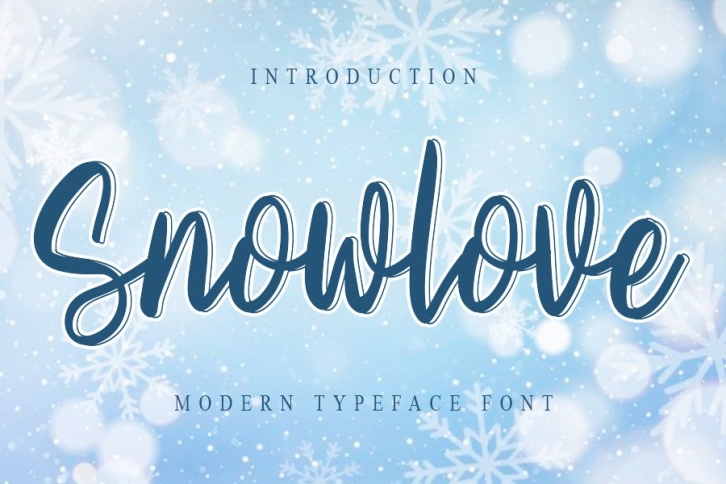
Snowlove is a trendy and unique font with an authentic style. It was designed by FreshType INK and it's a great choice for creative people who need such a font. It was released on March 7, 2021 and the file size is 16.80 MB. Snowlove will add an organic vibe to any design idea!